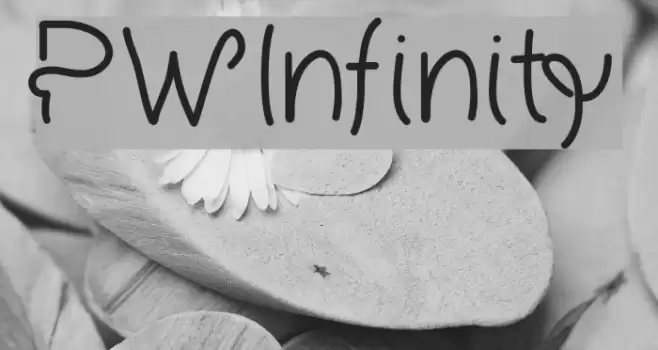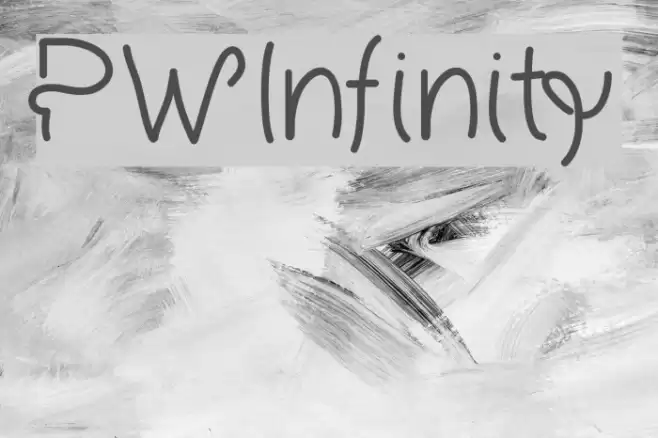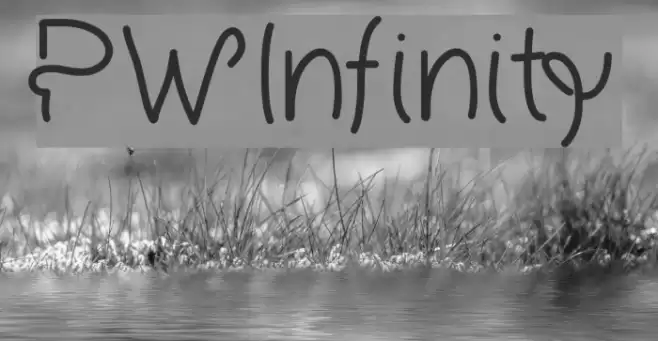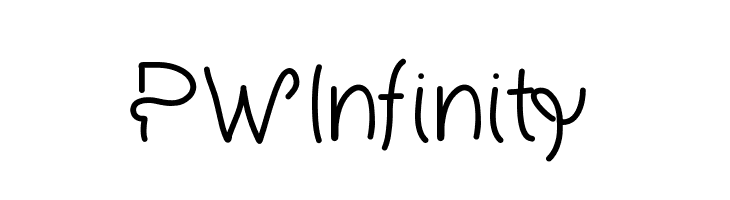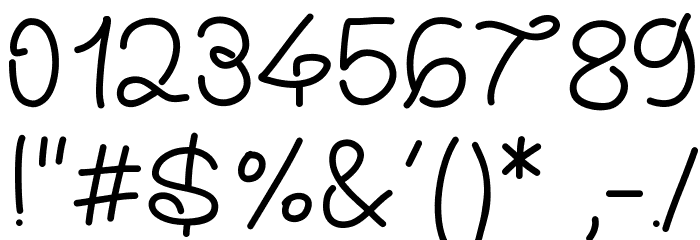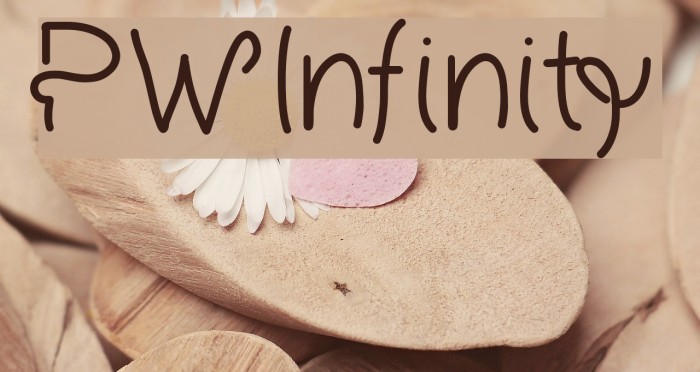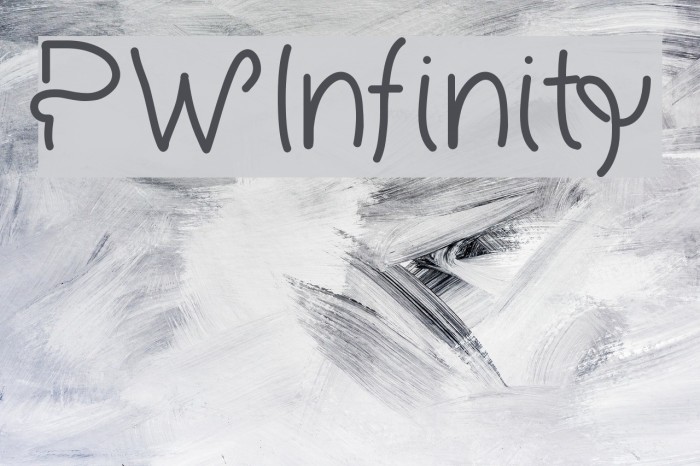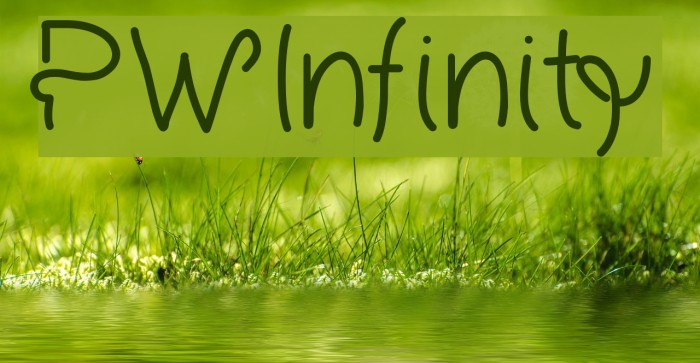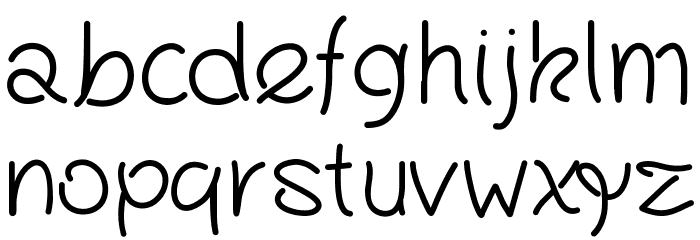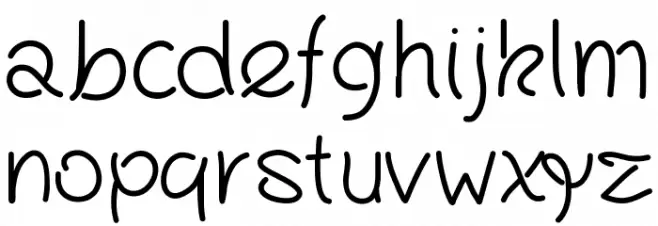
PWInfinity Font
PWInfinity Description
This font features a playful and whimsical style with a handwritten appearance. The characters are rounded and have a flowing, cursive-like quality, giving them a friendly and approachable feel. The uppercase letters maintain a consistent height, while the lowercase letters exhibit a slight variation in size, adding to the casual aesthetic. The numerals and special characters are designed to match the overall style, ensuring a cohesive look across all text elements. The strokes are moderately thick, providing good readability while maintaining the font's unique character.
A playful, handwritten-style font with rounded, flowing characters from Uncategorized fonts.
- Proposed Projects: Ideal for children's books, greeting cards, playful branding, and casual invitations.
- Overall Style: Playful
- Use Case: Headlines, Logos, Casual Text